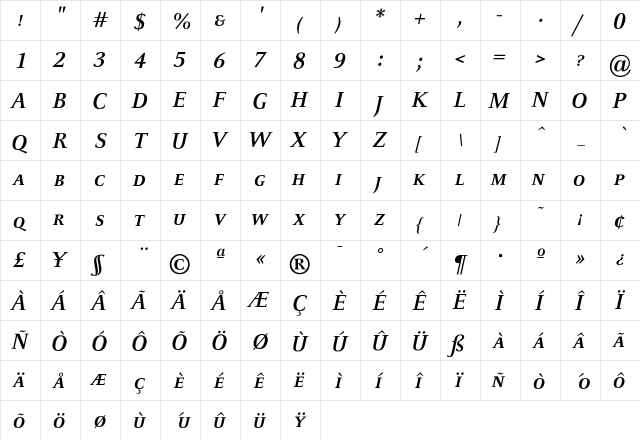
CelesteCaps BoldItalic
Design Context for CelesteCaps Typeface
CelesteCaps offers clean, dependable letterforms without strong stylistic allegiance, making it a practical choice for designers who need flexibility. The slanted form adds forward momentum and visual energy. Its bold stroke weight gives it real presence on the page.
Pro Tip: Try CelesteCaps for annotation and caption copy alongside an upright companion — the contrast in angle creates a dynamic but ordered typographic system.